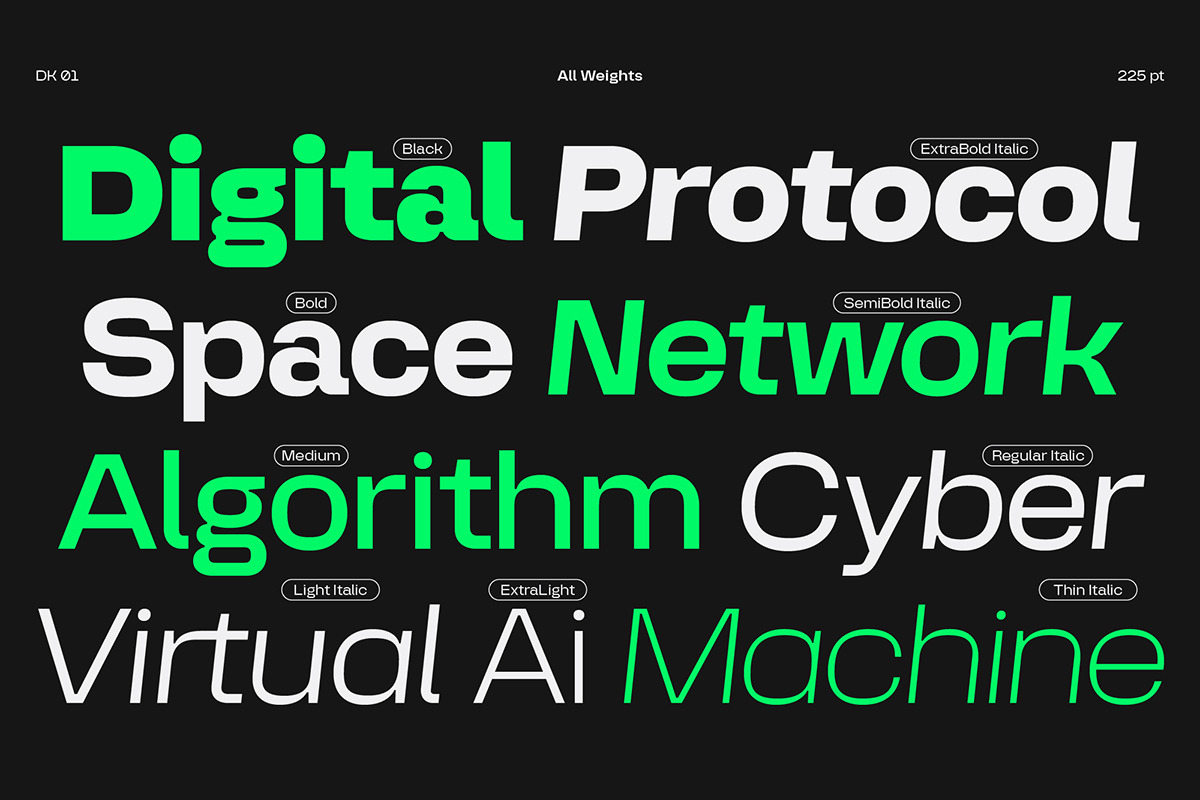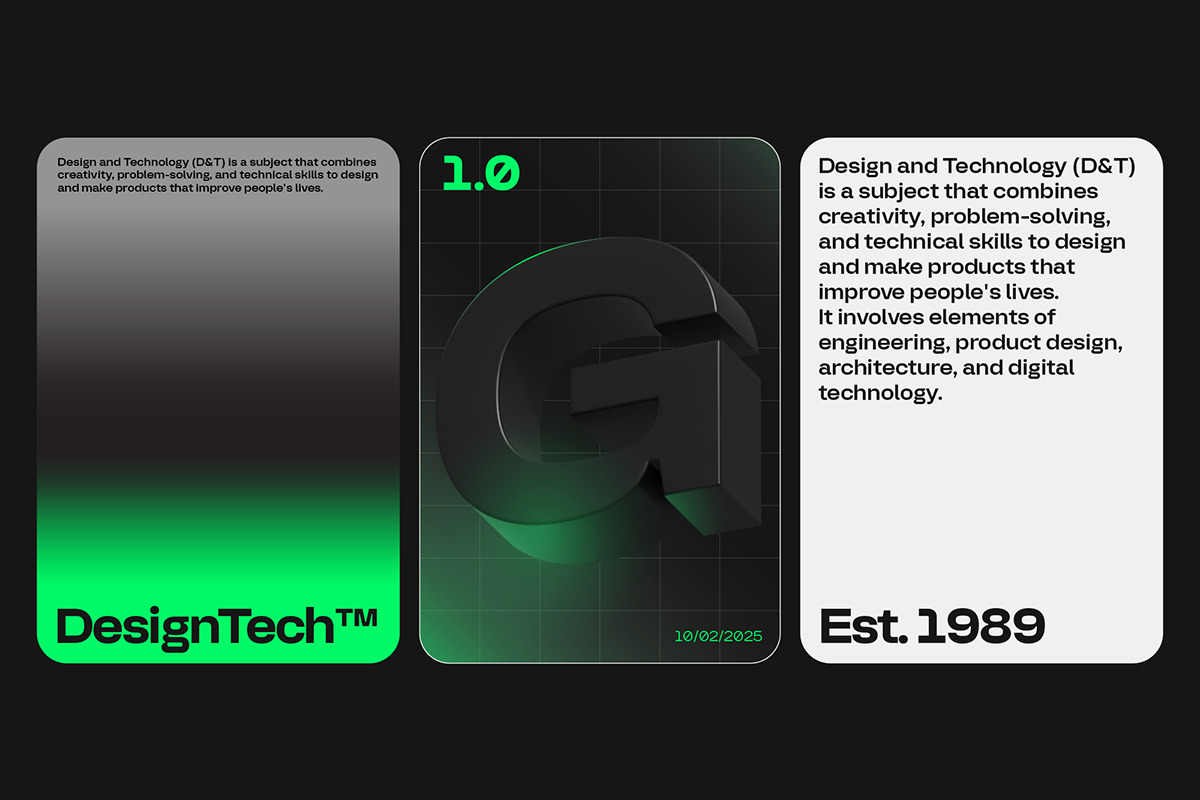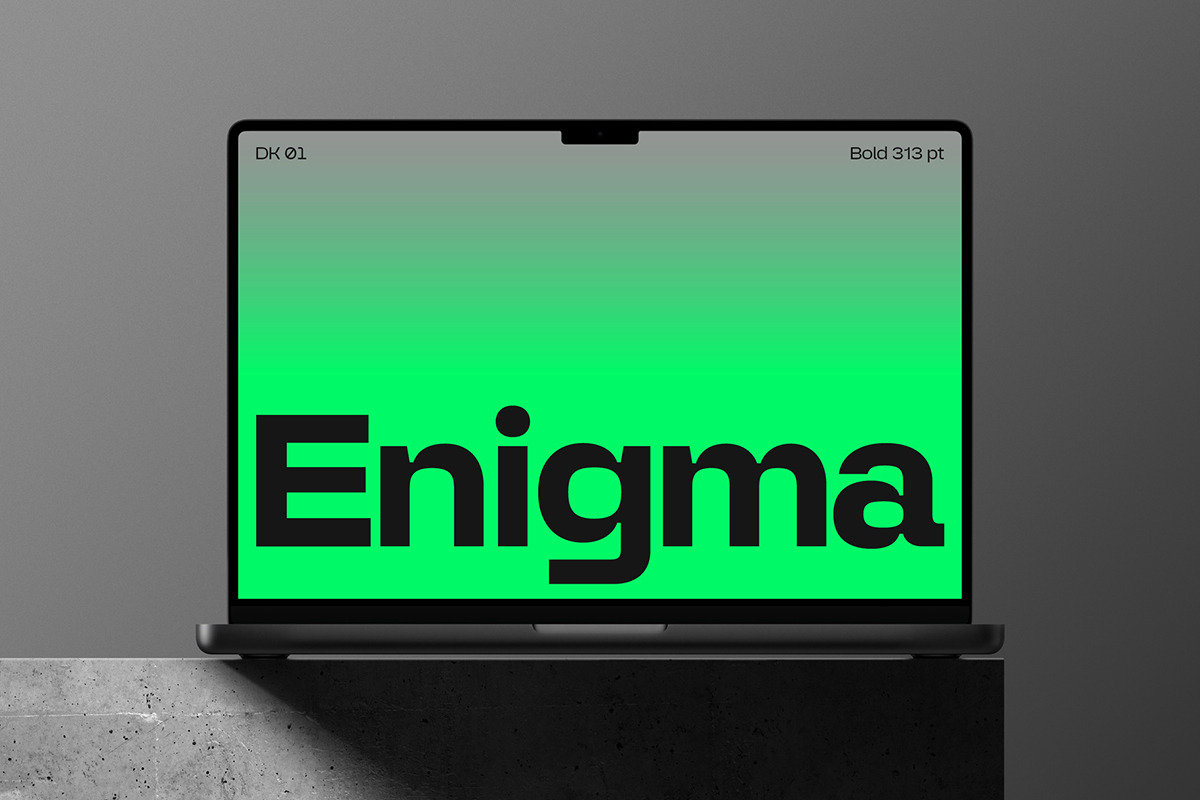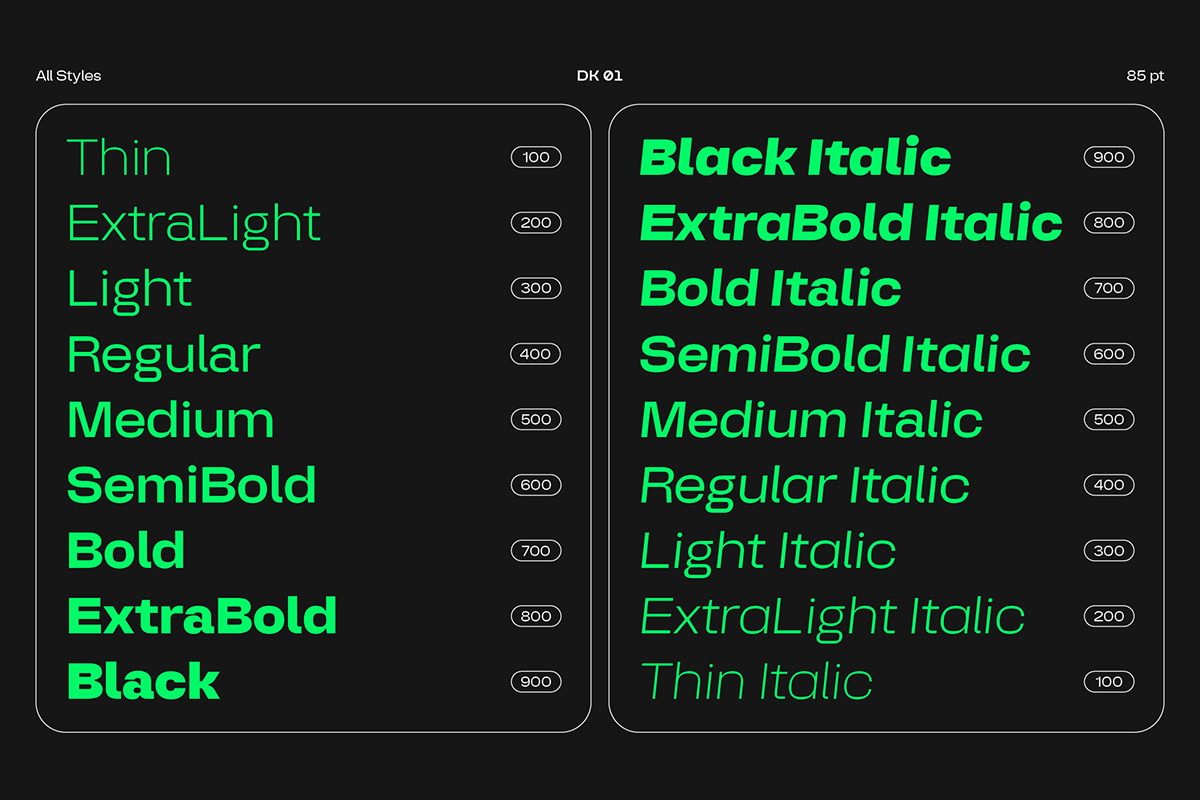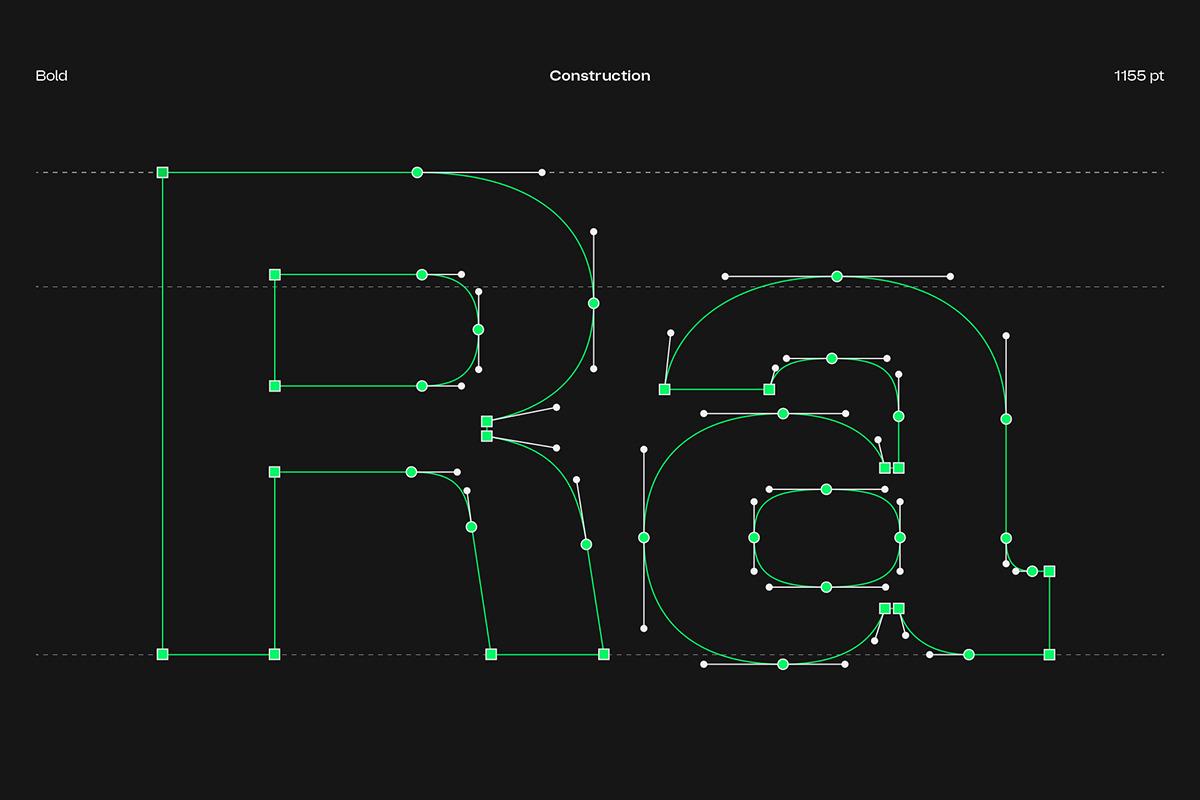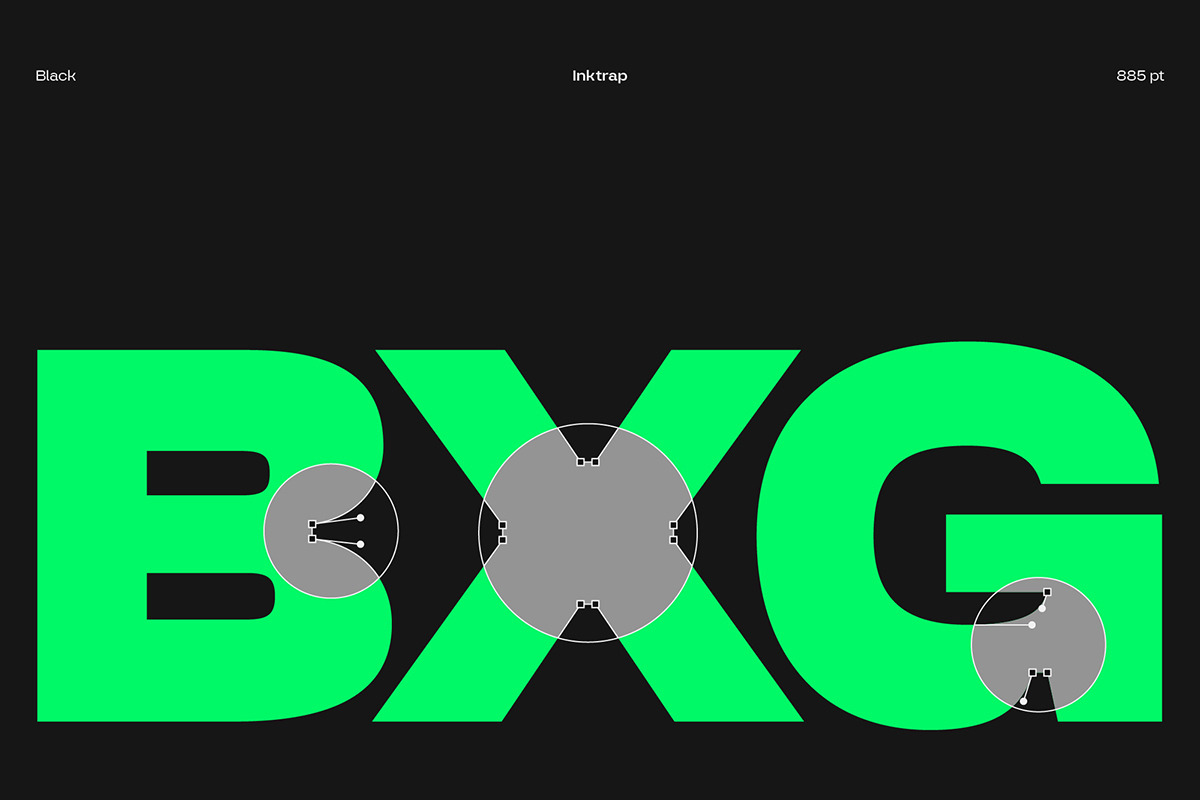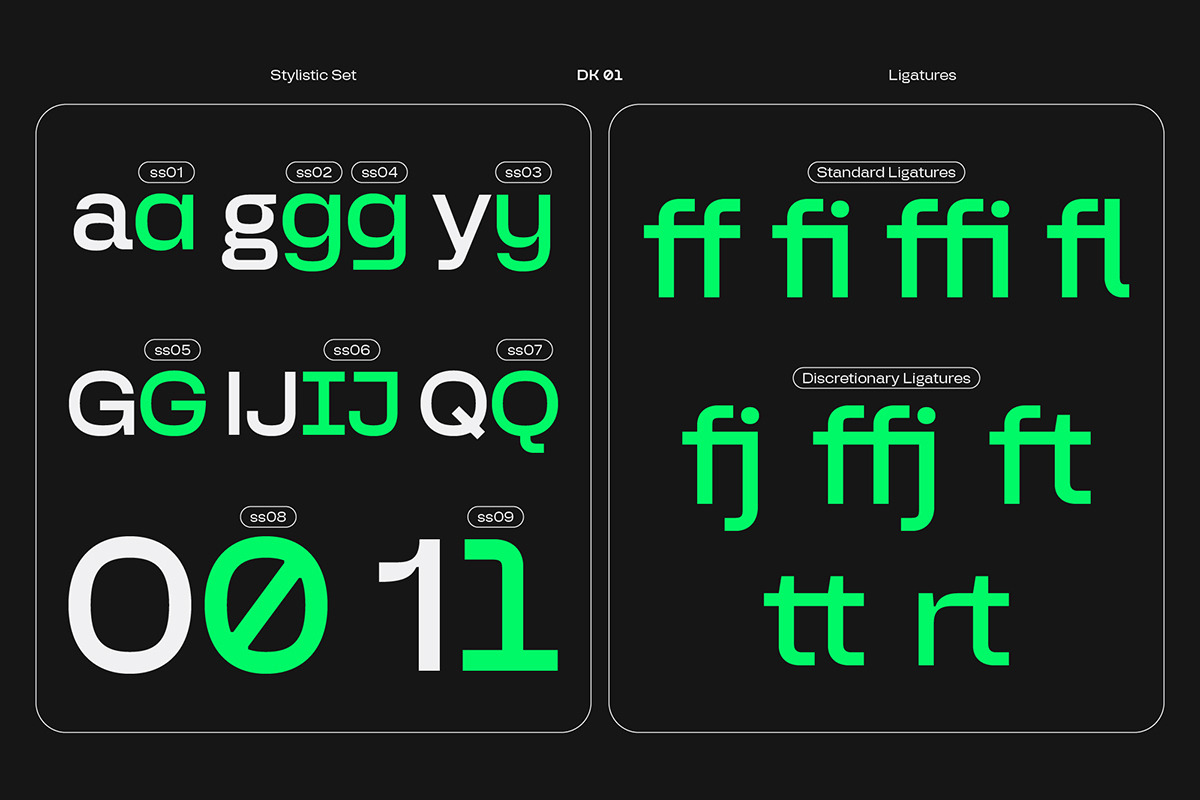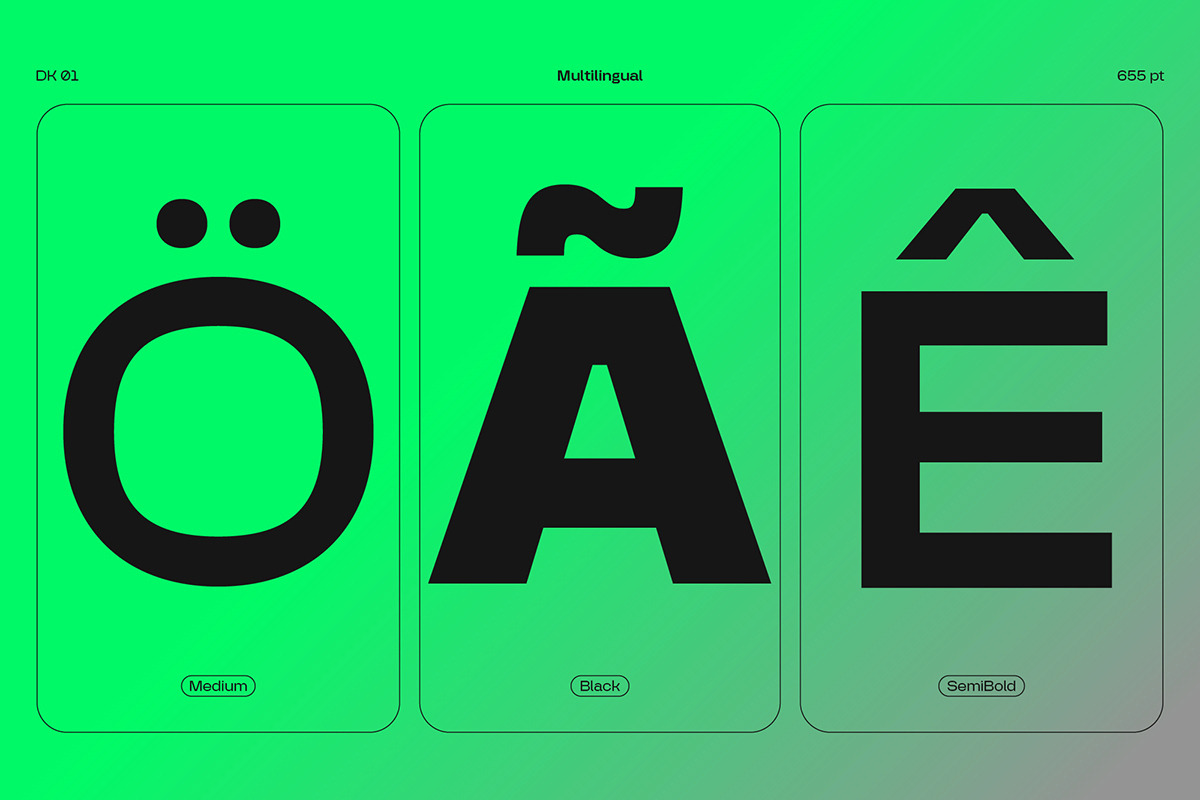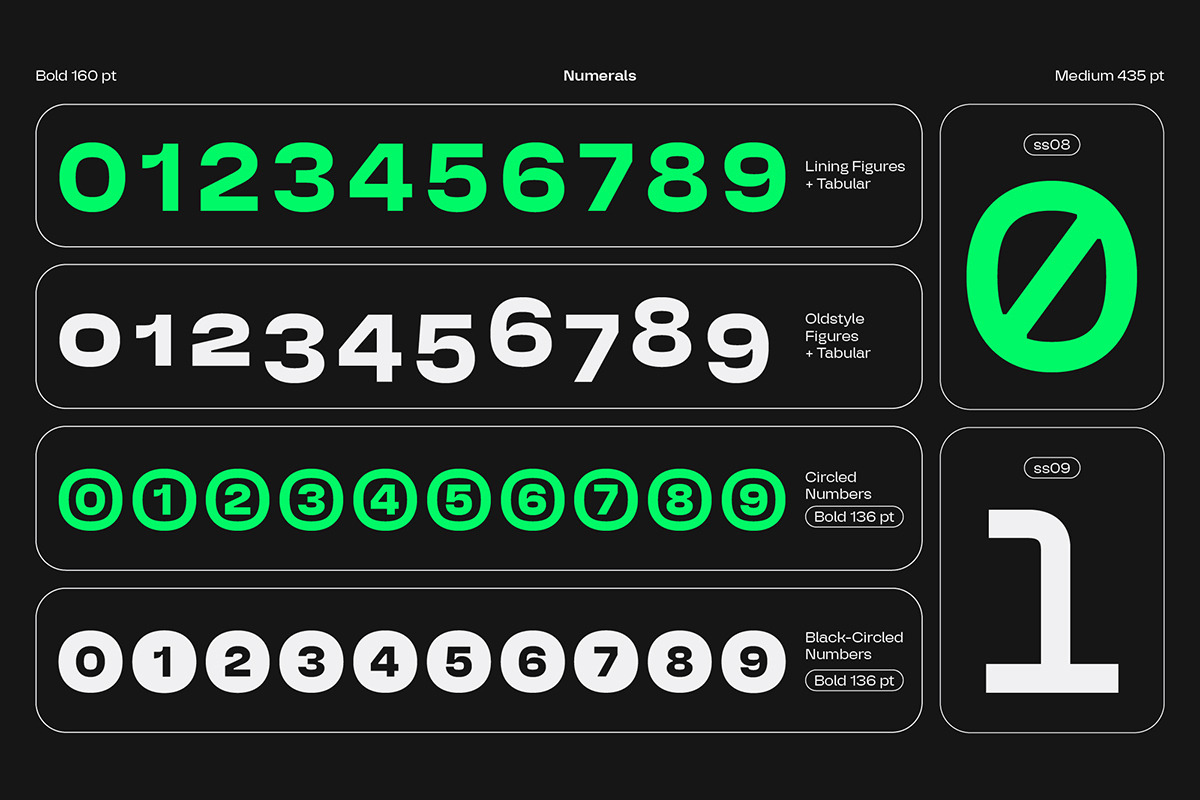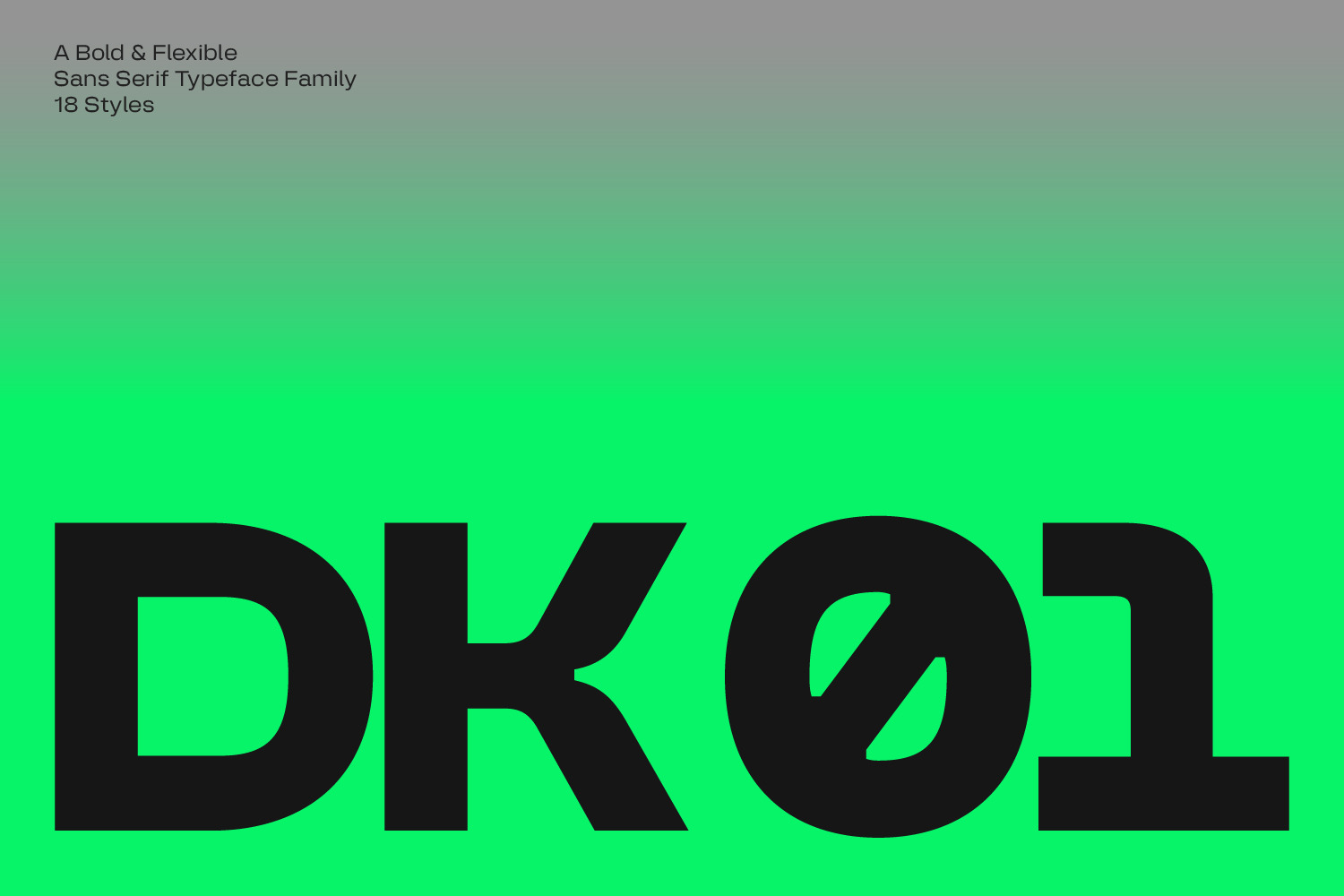
DK 01 - Typeface Family
DK 01 is a bold and flexible sans-serif typeface, precisely designed to blend modern structures with functional aesthetics. It features sharp details and deep ink traps in its heavier weights, giving it a distinct and contemporary character.
Inspired by the digital era, DK 01 is built for the future of technology. Designed to meet the demands of modern interfaces, it ensures seamless readability in lighter weights while delivering bold, high-impact energy in its heavier styles.
Available in 18 styles, each with matching italics for ultimate flexibility in your designs!